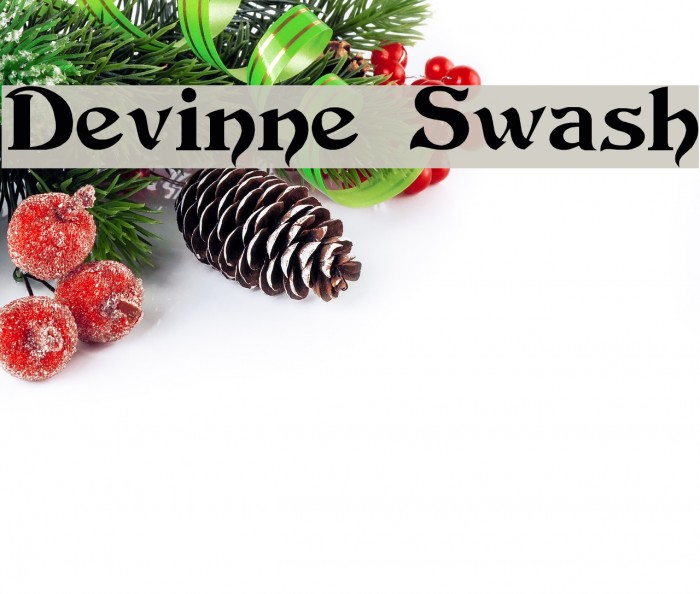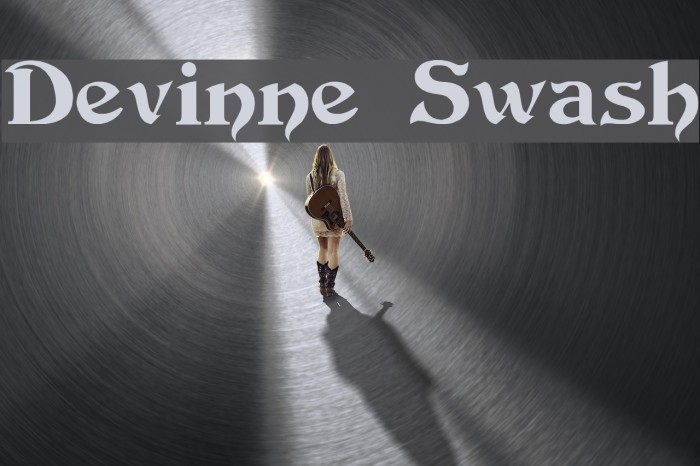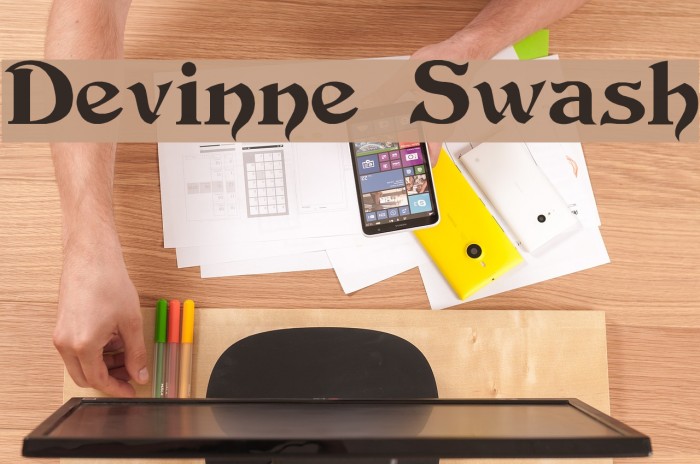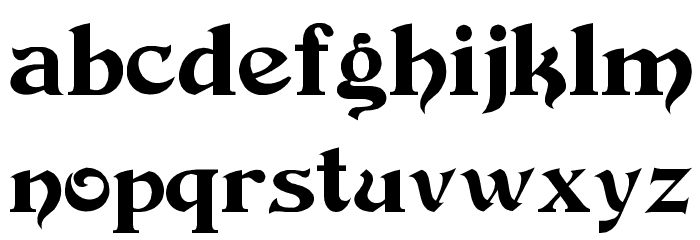
Devinne Swash Font
Devinne Swash Description
This font features a bold and dramatic style with a distinct medieval flair. The uppercase letters are characterized by sharp, angular serifs and a strong presence, while the lowercase letters maintain a consistent flow with unique, pointed terminals. The numerals are equally bold, with a slightly condensed appearance that complements the overall design. Special characters are crafted with the same attention to detail, enhancing the font's decorative appeal. The combination of thick and thin strokes provides a medium contrast, adding to its striking visual impact.
A bold, medieval-inspired font with angular serifs and medium contrast from Retro fonts.
- ( Fonts by Dieter Steffmann FREE )
- Proposed Projects: Ideal for projects requiring a historical or fantasy theme, such as book covers, posters, or themed event invitations.
- Overall Style: Vintage